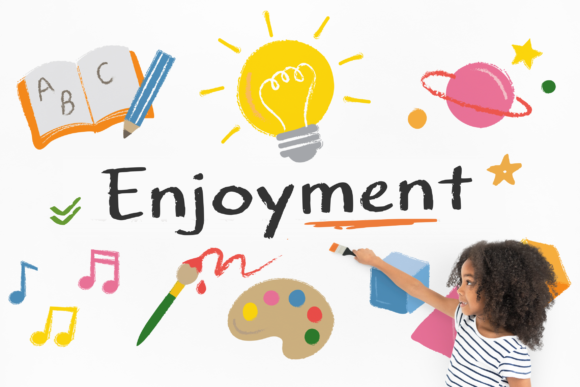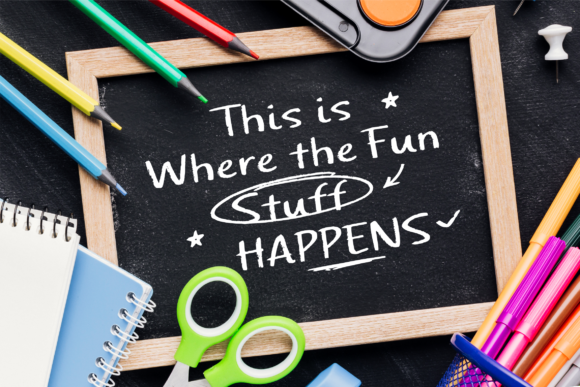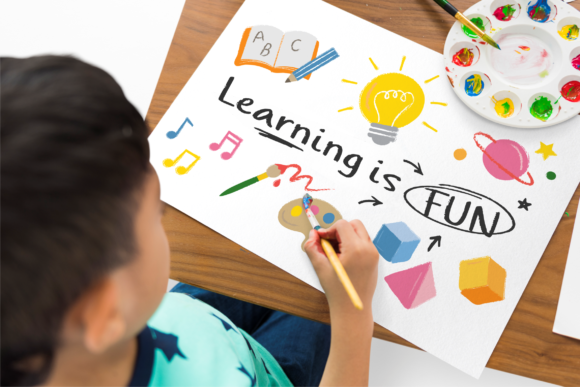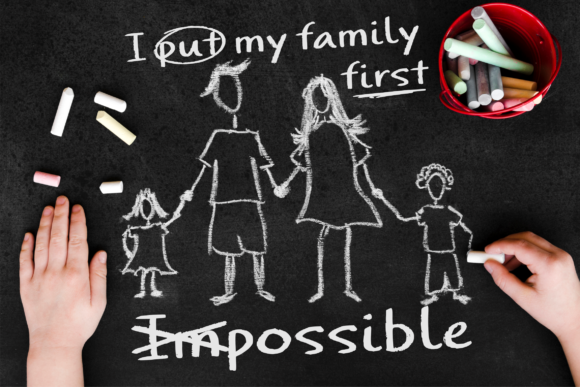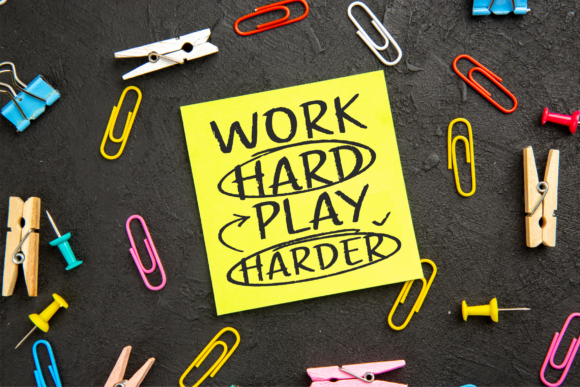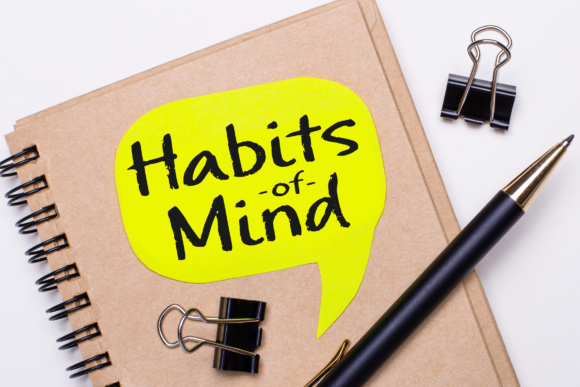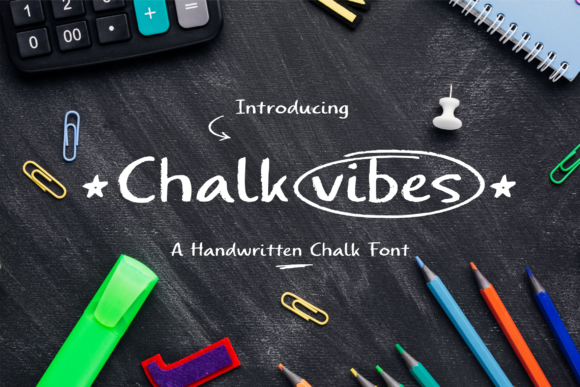
Introducing Chalkvibes: The Ultimate Handwritten Chalk Font
Are you tired of using the same old fonts for your design projects? Look no further! Allouse.Studio is excited to introduce Chalkvibes, a beautiful handwritten chalk font that’s perfect for adding a touch of personality to your work. In this article, we’ll dive into the features and benefits of Chalkvibes, and explore how it can elevate your designs.
What is Chalkvibes?
Chalkvibes is a carefully crafted handwritten chalk font that’s designed to bring a sense of playfulness and creativity to your designs. With its unique and expressive lettering style, Chalkvibes is perfect for a wide range of applications, from product packaging and branding projects to magazine articles, social media graphics, and wedding invitations.
Key Features of Chalkvibes
- Multilingual Support: Whether you’re working on a project in English or another language, Chalkvibes has got you covered with its extensive multilingual support.
- Handwritten Chalk Style: The font’s unique handwritten chalk style adds a touch of warmth and personality to your designs, setting them apart from the crowd.
Use Cases for Chalkvibes
So, how can you use Chalkvibes in your designs? Here are just a few ideas to get you started:
- Product Packaging: Add a personal touch to your product packaging with Chalkvibes. The font’s playful style is perfect for labeling products, creating brand identities, and more.
- Branding Projects: Establish your brand’s personality with Chalkvibes. The font’s unique style can help you create a memorable brand identity that sets you apart from the competition.
- Magazine Articles: Add some visual interest to your magazine articles with Chalkvibes. The font’s handwritten style is perfect for headings, subheadings, and other design elements.
- Social Media Graphics: Take your social media graphics to the next level with Chalkvibes. The font’s playful style is perfect for creating eye-catching graphics that grab attention.
- Wedding Invitations: Make your wedding invitations truly special with Chalkvibes. The font’s romantic style is perfect for creating beautiful, one-of-a-kind invitations.
Tips for Using Chalkvibes
To get the most out of Chalkvibes, here are a few tips to keep in mind:
- Experiment with Colors: Chalkvibes looks great in a variety of colors, so don’t be afraid to experiment and find the perfect hue for your design.
- Play with Texture: The font’s chalk style has a natural texture that can add depth and interest to your designs. Experiment with different textures to find the perfect look.
- Mix and Match: Chalkvibes is a versatile font that can be paired with a wide range of other fonts and design elements. Don’t be afraid to mix and match to create a unique look.
In conclusion, Chalkvibes is a unique and versatile handwritten chalk font that’s perfect for designers and crafters looking to add a touch of personality to their work. With its multi-format support, multilingual support, and playful style, Chalkvibes is sure to become a go-to font in your design arsenal. So why wait? Download Chalkvibes today and start creating beautiful, eye-catching designs that stand out from the crowd!